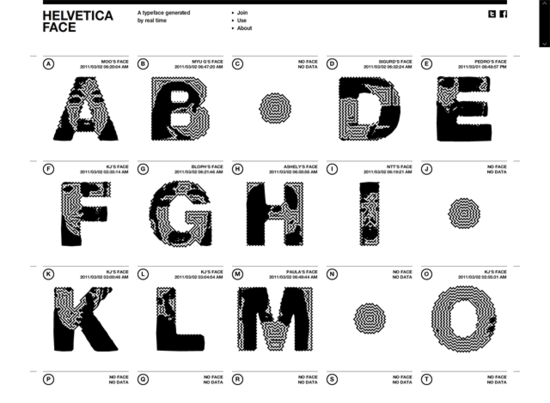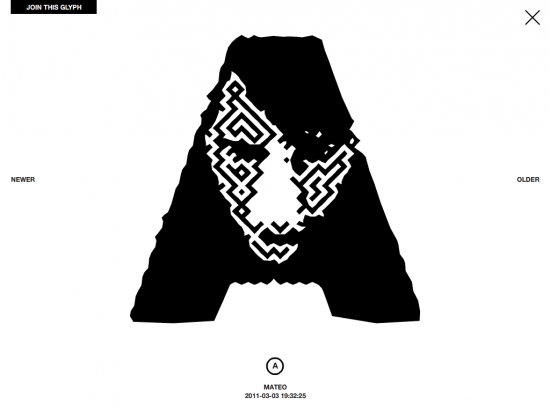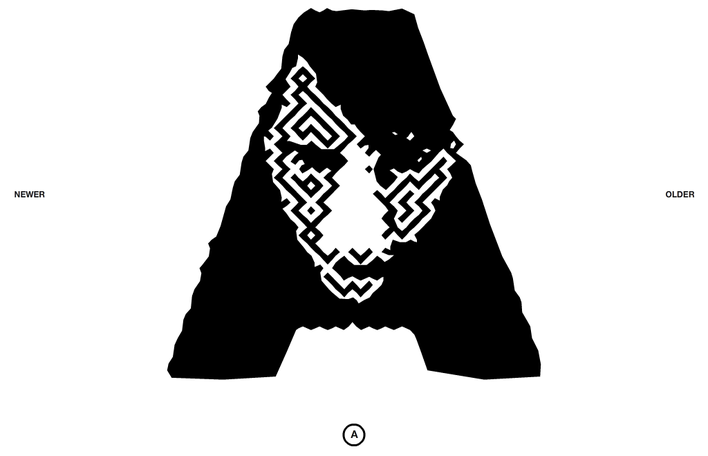
Helvetica Face is a Livetype format font. This new Helvetica family font changes the “typeface” based on the posting of a new “face”.
While normal fonts which are governed by software rules on how to show the internal form (=data), Helvetica Face doesn’t have this internal information on the form. What is does have is external data given in the shape of a image of your face, and how to show that form is the only rule. For that reason, through the given data, the form continues to change without bounds.
About the Livetype
Livetype is a new font format which takes a variety of data and can change the form of it in real time.
Livetype font has an interior database and an interface for entering of new data. Data entered from this interface is accumulated in the database, and it is that accumulated data which changes the form of the typeface in realtime. The changes given to that font are reflected by the same family of fonts from around the world.